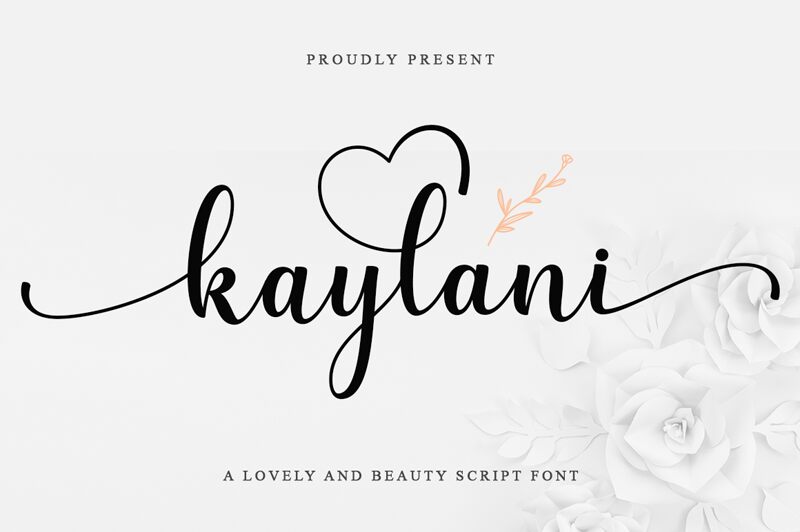
Kaylani
Kaylani, a captivating calligraphic font crafted by Fadlilah Studio, effortlessly blends grace and elegance. Its fluid, sweeping strokes evoke a sense of timeless beauty, infusing any design with a touch of sophistication. The script-like flourishes and harmonious letter forms create a visual symphony that captivates the eye and stirs the imagination.
This versatile font lends itself seamlessly to a variety of design applications, from captivating wedding invitations to impactful branding materials. Its distinctive style elevates the written word, making it a prime choice for headers, titles, and eye-catching accents that demand attention. Kaylani's adaptability allows designers to imbue their creations with a refined, sophisticated aesthetic that is sure to leave a lasting impression.